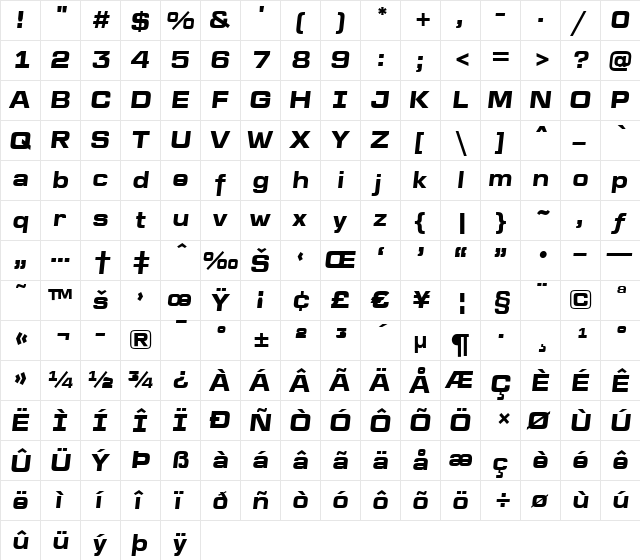
a_LineaSans Bold Italic
| Designer | W.Chufarofsky & M.Slutsker |
Design Context for a_LineaSans Typeface
a_LineaSans takes a measured approach to typography — its balanced proportions and neutral character make it a reliable workhorse for both digital and print work. The slanted form adds forward momentum and visual energy. Its bold stroke weight gives it real presence on the page.